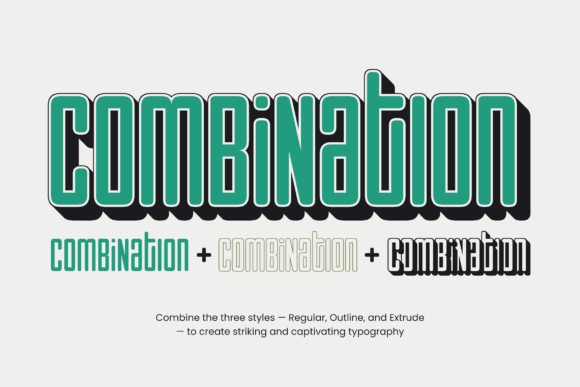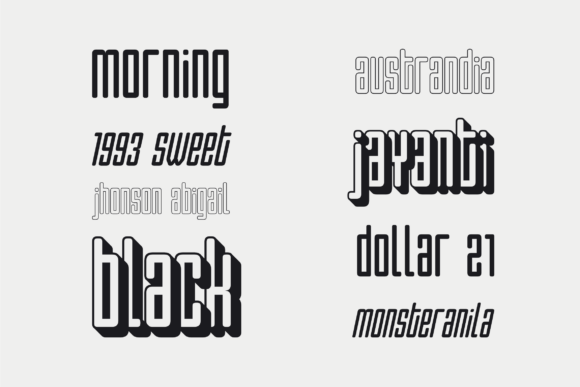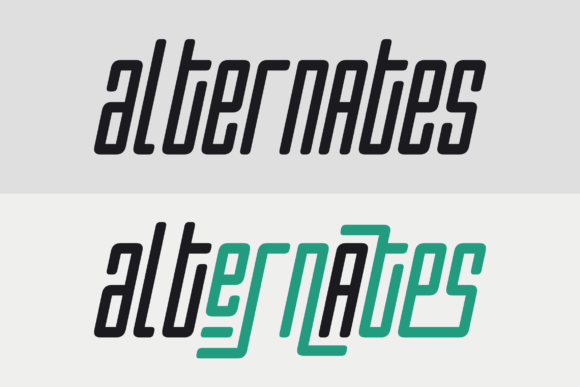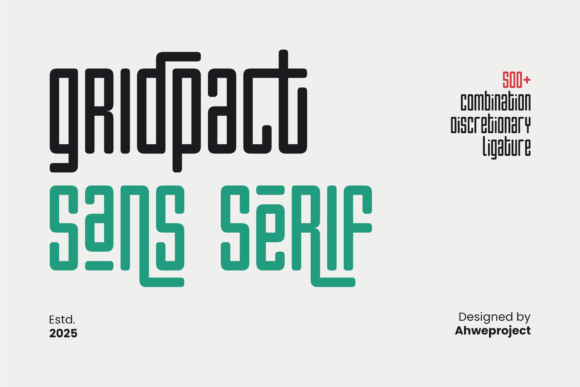
Introduction to Gridpact Font
Introducing Gridpact, a modern sans serif font crafted for those who love clean, futuristic, and character-packed designs.
Built on a precise grid system, Gridpact stands out with over 500 discretionary ligature combinations, giving every word a unique and eye-catching look Perfect for branding designs, electronic music posters, sci-fi book covers, creative logos, and other modern projects.
Key Features of Gridpact Font